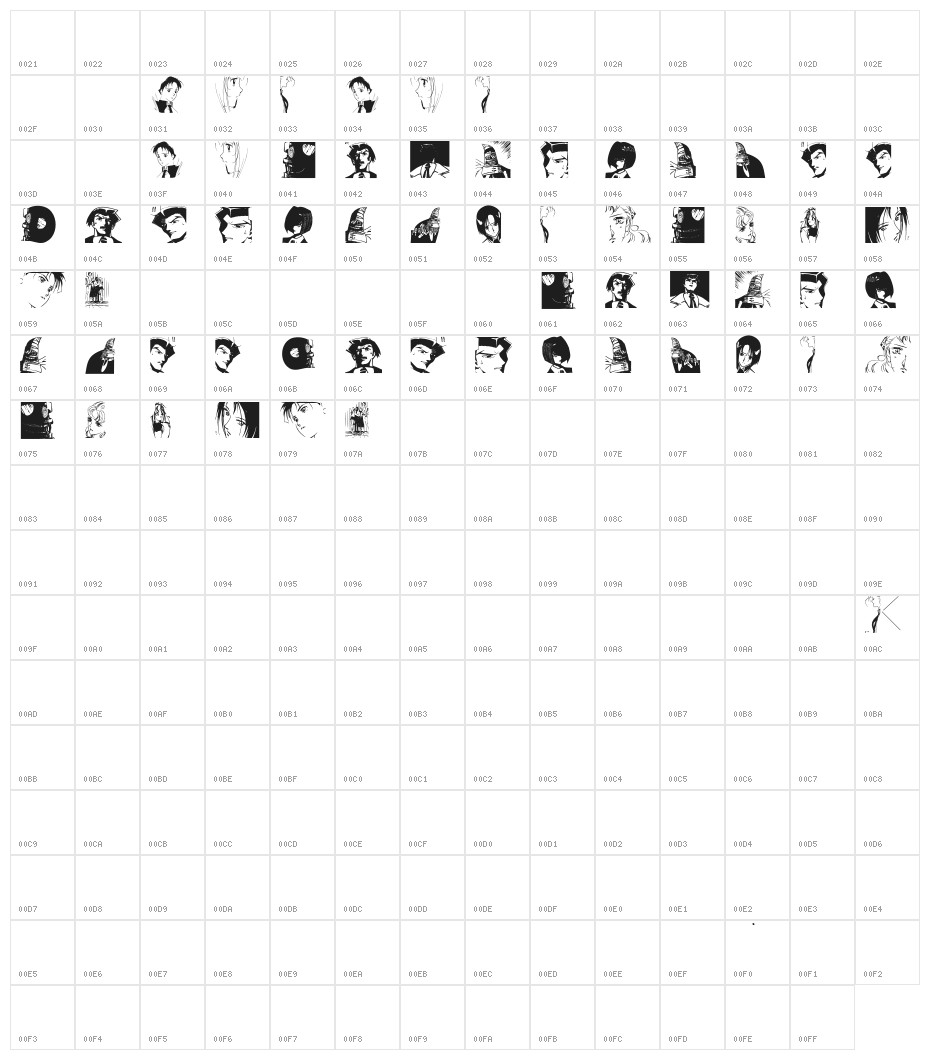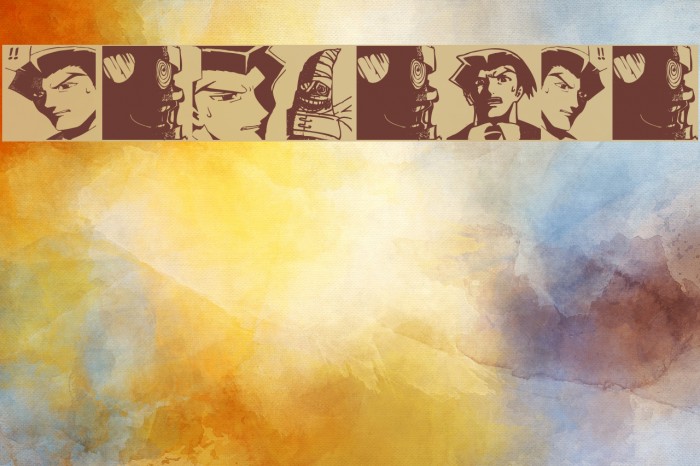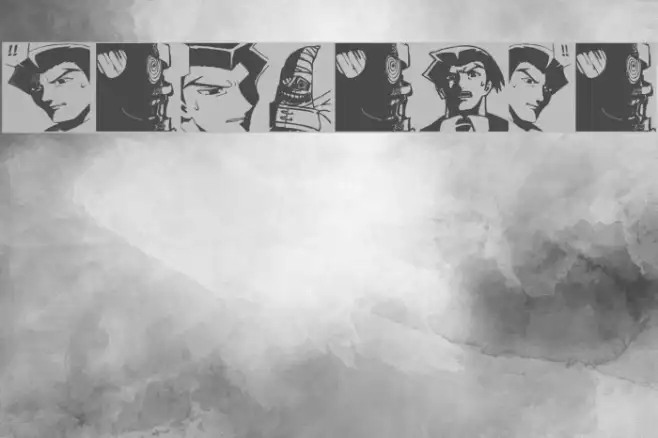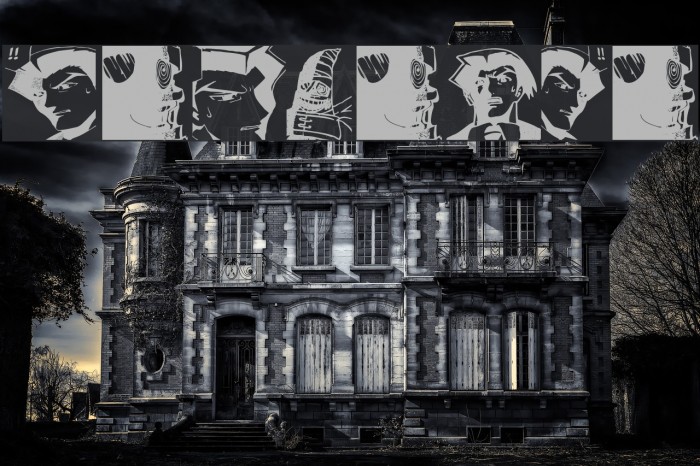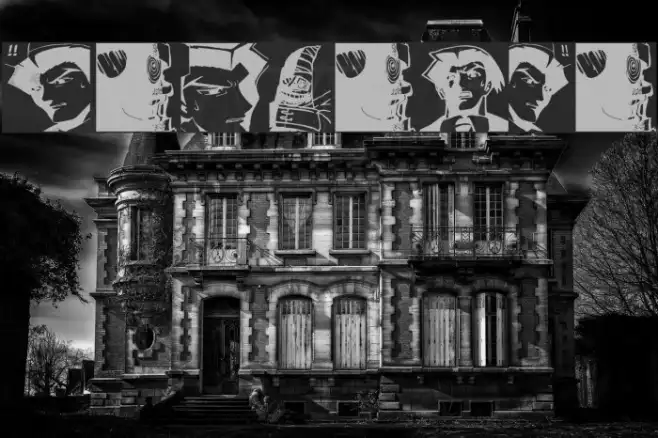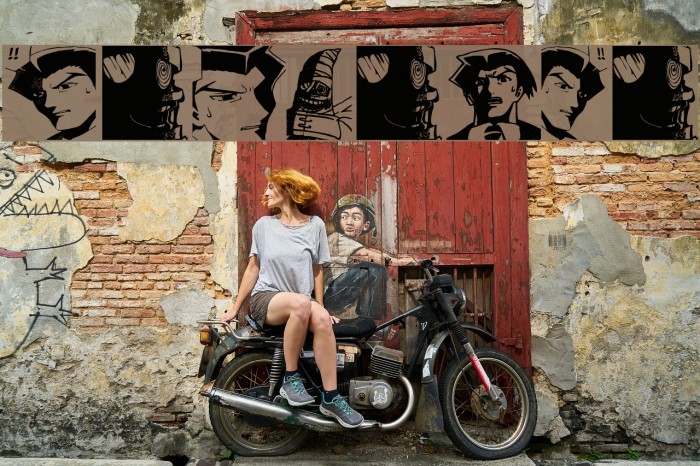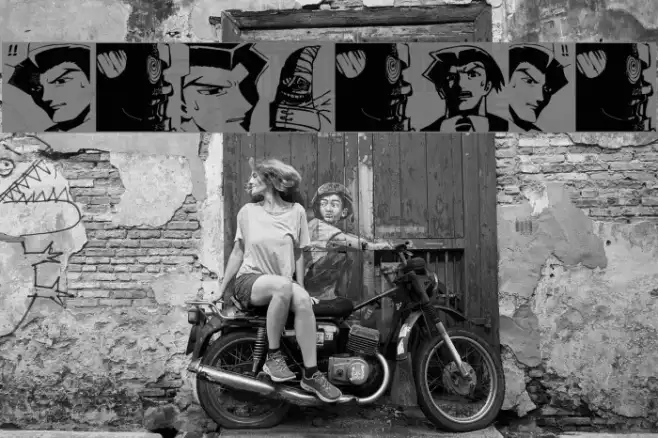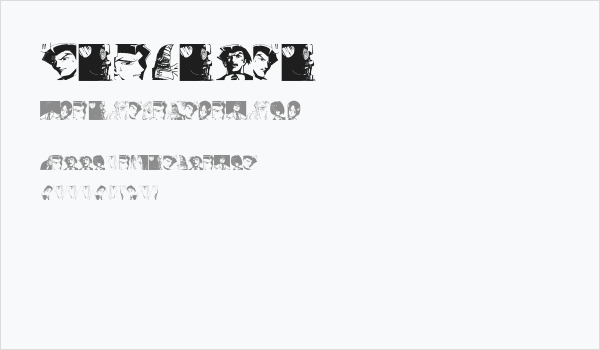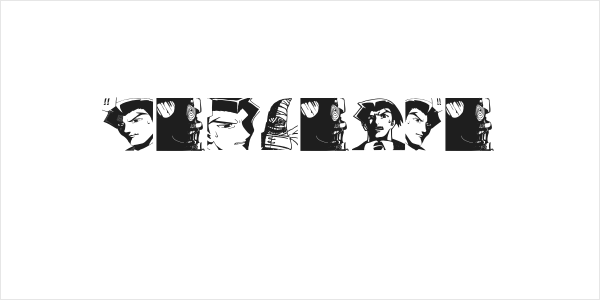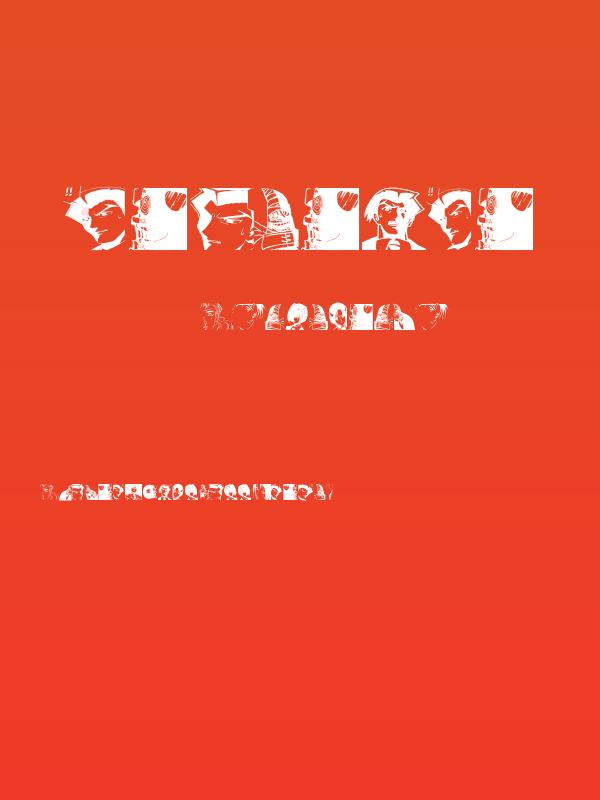
Mangalia Font
Mangalia Description
This is not a valid font. The image contains stylized characters composed of manga-style illustrations, where each letter is represented by a unique drawing. These illustrations feature detailed character expressions and scenes, making it more of an artistic representation rather than a functional typeface. The characters are not uniform in style or form, and they do not adhere to typical font characteristics such as consistent stroke width, spacing, or alignment. This artistic approach is more suited for decorative purposes rather than practical text usage.
| Overall Style | Artistic, Illustrative |
| Use Case | Decorative purposes, artistic projects. |
| Proposed Projects | This style could be used for creative projects such as graphic novels, comic book titles, or artistic posters where a unique and illustrative approach is desired. |